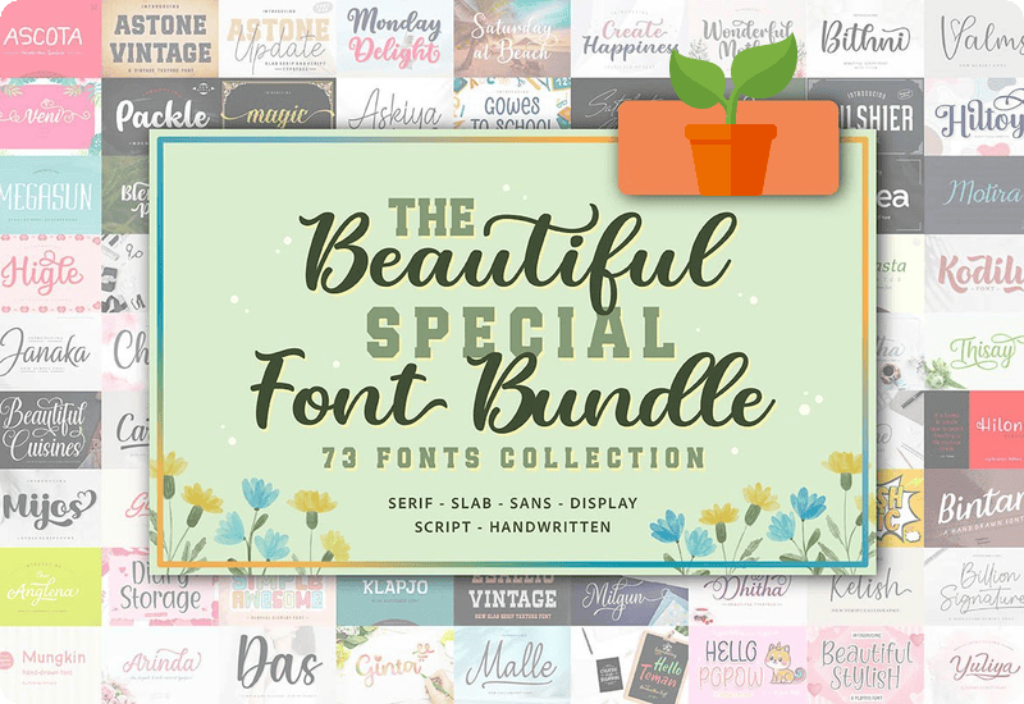
This incredible offer includes 73 diverse fonts by the renowned designer Andrian Dehasta, each one perfect for adding a romantic and fun flair to anything from blog headers to wedding elements. And the best part? Each font comes with a commercial license, ensuring you can use them freely in all your projects.
What is Included in The Beautiful Special Font Bundle?
The Beautiful Special Font Bundle is a treasure trove of 73 premium fonts. These fonts cover a wide range of styles, from elegant scripts to bold slab serifs, ensuring there’s something for every project. Plus, with a commercial license included, you have the freedom to use these fonts in personal and professional projects without worrying about legal constraints.
Premium Fonts included in The Beautiful Special Font Bundle:
- Astone Vintage Slab Serif Font
- Astone Update Slab Serif Font
- Billion Signature Script & Handwritten Font
- Beautiful Cuisines Fuentes Caligráficas Fuente
- Janaka Script & Handwritten Font
- Esallio Vintage Slab Serif Font
- Packle Script & Handwritten Font
- Creative Christmas Fuentes Caligráficas Fuente
- Malle Script & Handwritten Font
- Candire Script & Handwritten Font
- Lucky Christmas Script & Handwritten Font
- Mackey Script & Handwritten Font
- Emilla Script & Handwritten Font
- Gowes to School Script & Handwritten Font
- Woosh Comic Display Font
- Charline Script & Handwritten Font
- Molea Font Sans Serif Font
- Kelish Script & Handwritten Font
- Castel Helloween Display Font
- Abilya Script & Handwritten Font
- Carloten Fuentes Caligráficas Fuente
- Beautiful Stylish Script & Handwritten Font
- Anglena Script & Handwritten Font
- Mungkin Script & Handwritten Font
- Hiltoy Script & Handwritten Font
- Valms Script & Handwritten Font
- Arinda Script & Handwritten Font
- Goday Script & Handwritten Font
- Simple Awesome Fontes de Exibição Fonte
- Ginta Script & Handwritten Font
- Satisfactory Marks Skript-Schriftarten Schriftart
- Togetha Script & Handwritten Font
- Askiya Script & Handwritten Font
- Stika Script & Handwritten Font
- Klapjo Slab Serif Font
- Higle Script & Handwritten Font
- Wonderful Mother Script & Handwritten Font
- Hithny Script & Handwritten Font
- Bintar Script & Handwritten Font
- Hello Popow Script & Handwritten Font
- Motira Script & Handwritten Font
- Kodily Script & Handwritten Font
- Saturday at Beach Script & Handwritten Font
- Dhitha Script & Handwritten Font
- Das Script & Handwritten Font
- Dehasta Momentos Script & Handwritten Font
- Monday Delight Script & Handwritten Font
- Hilona Script Fonts Font
- Diary Storage Script & Handwritten Font
- Ascota Script & Handwritten Font
- Chapter Script & Handwritten Font
- Mardin Script & Handwritten Font
- Thisay Script & Handwritten Font
- Ingat Serif Font
- Magic Script & Handwritten Font
- Yuliya Fontes Script Fonte
- Milgun Script & Handwritten Font
- Create Happiness Script & Handwritten Font
- Rulshier Display Font
- Blending Pade Script & Handwritten Font
- Veni Script & Handwritten Font
- Magical Smooth Script & Handwritten Font
- Today’s Story Script & Handwritten Font
- Hello Teman Script & Handwritten Font
- Bonna Party Skript-Schriftarten Schriftart
- Megasun Serif Font
- Still Loving Script & Handwritten Font
- Bithni Fontes Script Fonte
- Berthin Script & Handwritten Font
- Seelyn Script Fonts Font
- Elimus Serif Font
- Mijos Script & Handwritten Font
- Briany Script & Handwritten Font
How These Fonts Enhance Creative Projects
Fonts play a crucial role in defining the mood and tone of your designs. The versatility of the fonts in this bundle ensures they can be used across various mediums, from digital to print. Whether you’re designing a website, creating a logo, or crafting a social media post, these fonts add a unique flair that sets your work apart. Imagine the impact of a beautifully handwritten font on a wedding invitation, or the vintage charm of a slab serif on a poster.